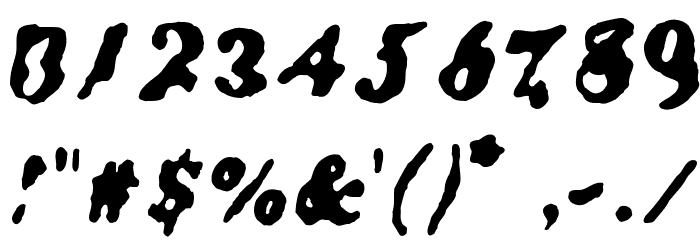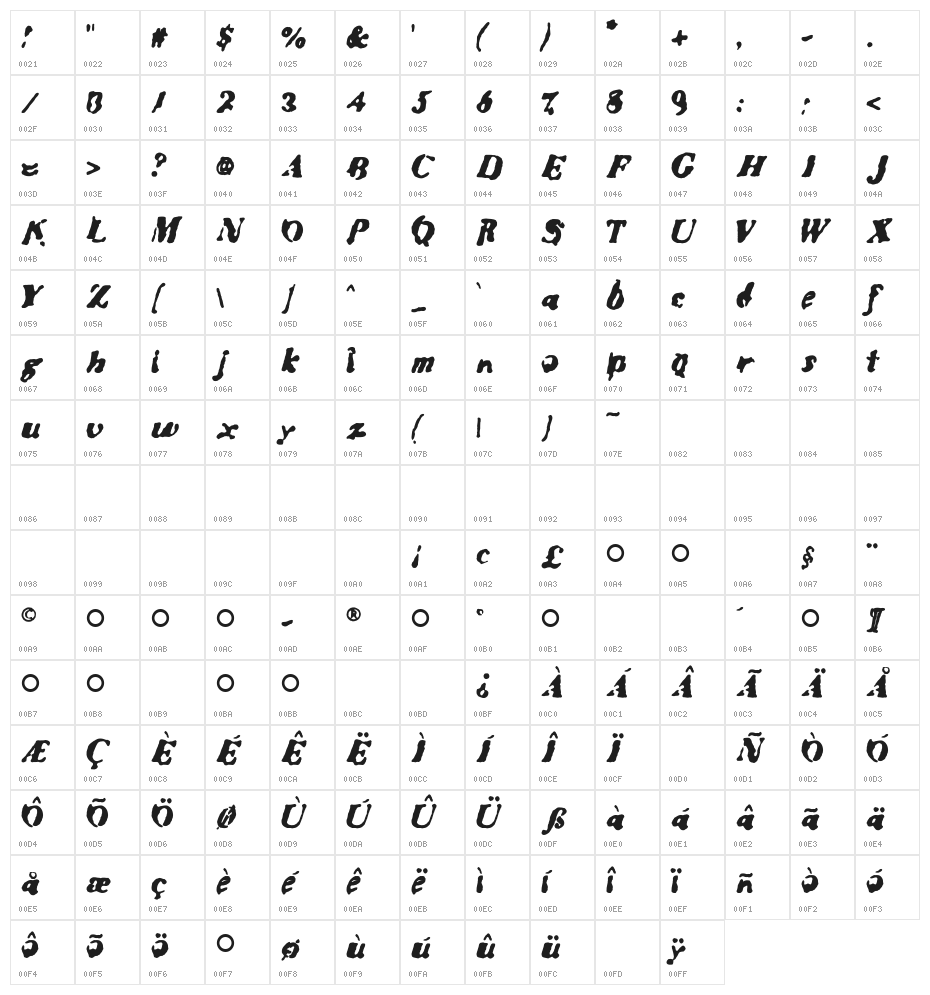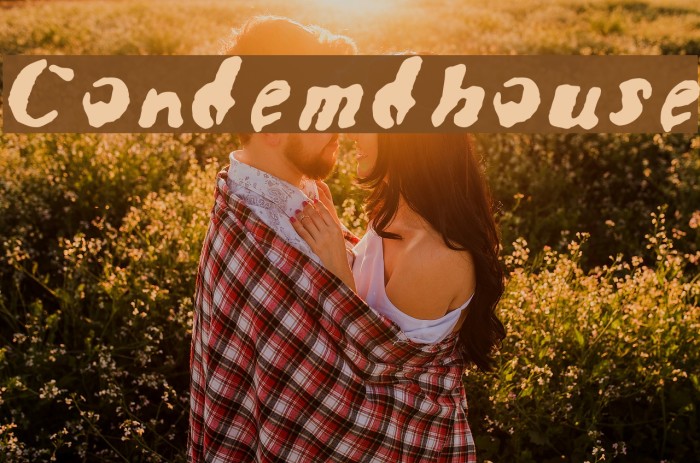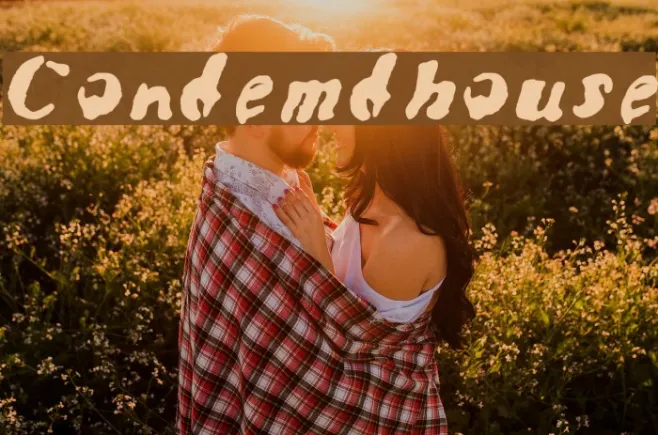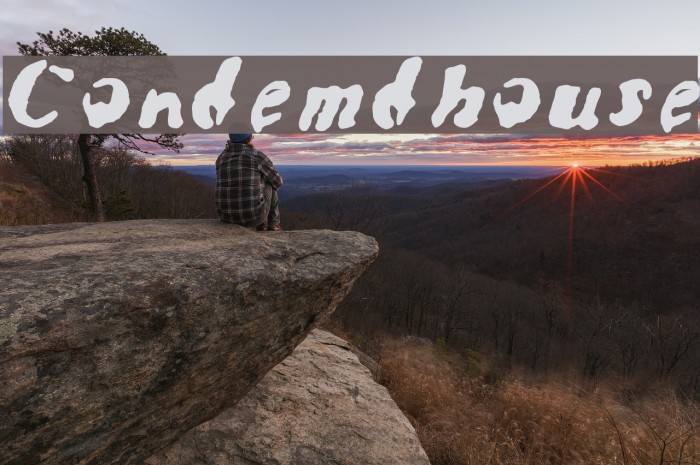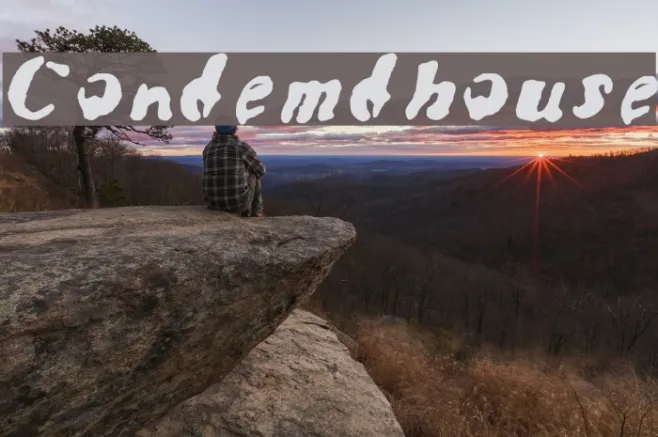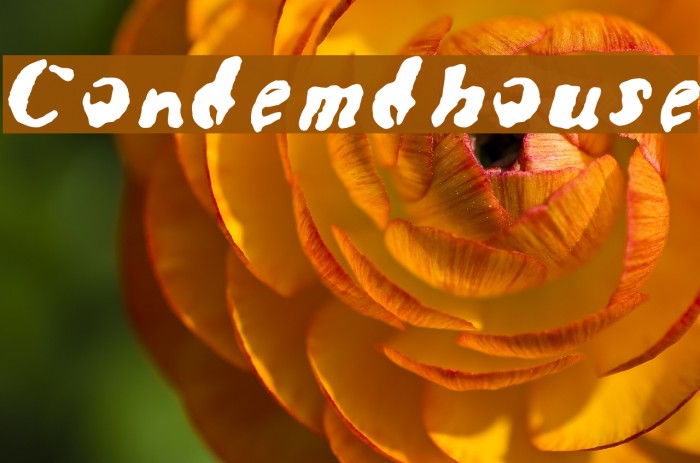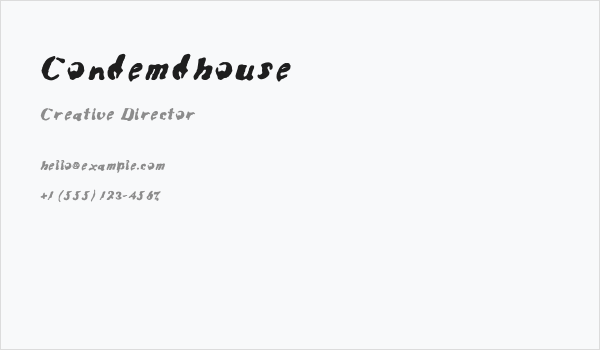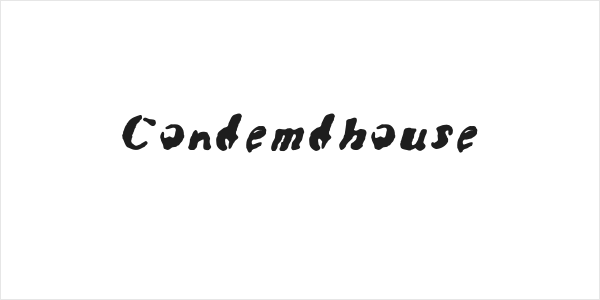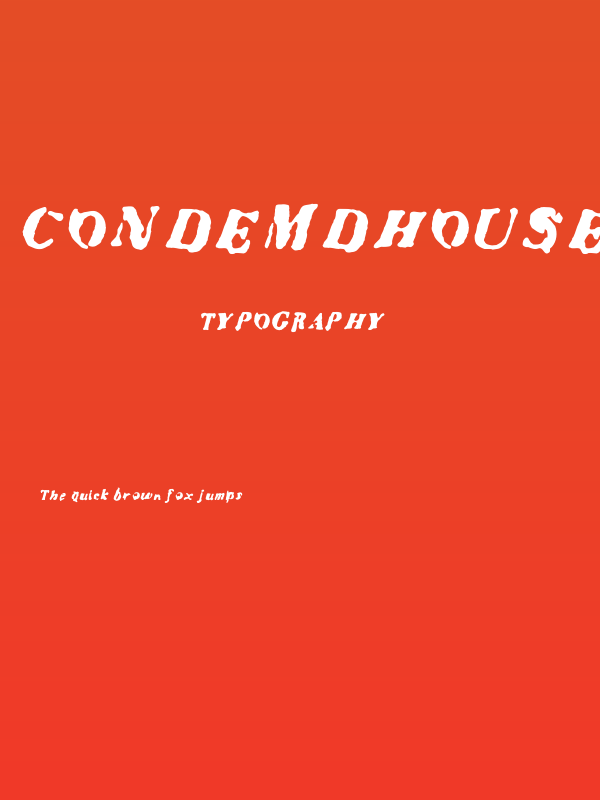
Condemdhouse Font
Condemdhouse Description
This font features a distressed, grunge style with irregular edges and a hand-painted appearance. The characters are bold and have a heavy, uneven texture, giving them a unique, organic feel. The uppercase and lowercase letters maintain a consistent style, with a slightly condensed width that enhances their boldness. Numbers and special characters follow the same aesthetic, ensuring a cohesive look across all text. The font's rough, artistic quality makes it stand out, ideal for projects that require a bold statement or an edgy, creative touch.
| Proposed Projects | Ideal for posters, album covers, branding for edgy or alternative products, and any design requiring a bold, artistic statement. |